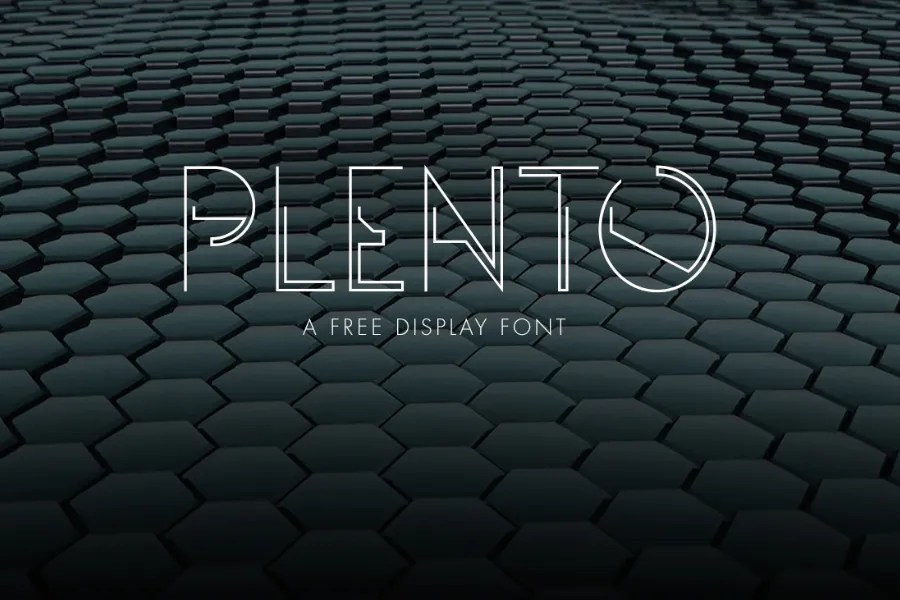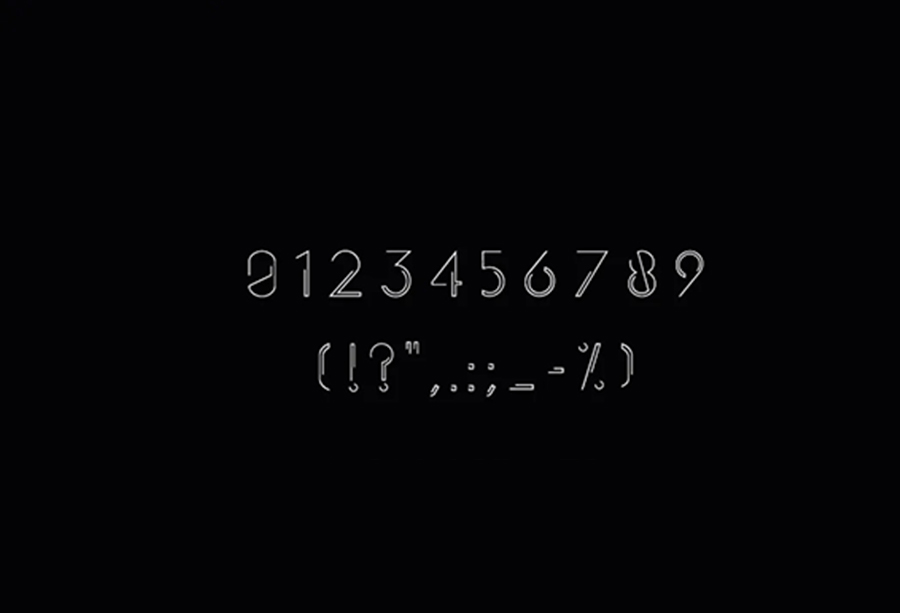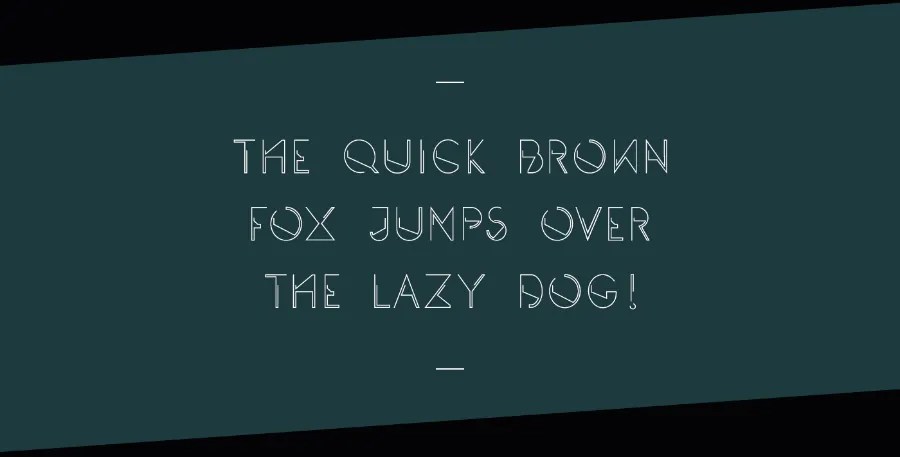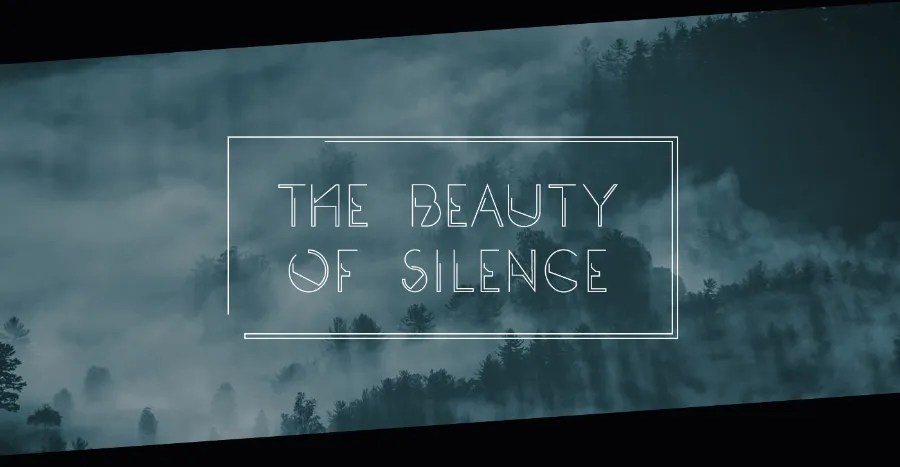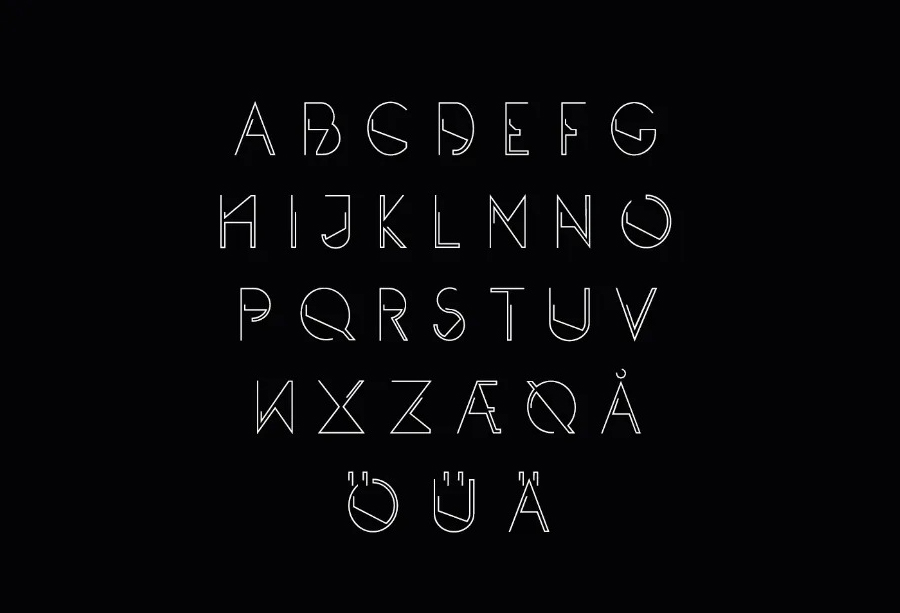
Plento Font
Looking for a perfect font to fire up your projects? Introducing Plento Font .Plento is a space-look display font that is arranged neatly and geometrically. This freebie contains Plento regular that is very useful for logotype, headlines, apparel, album art and more of your creative mind ever desired! Make an awesome design using this enchanting font.